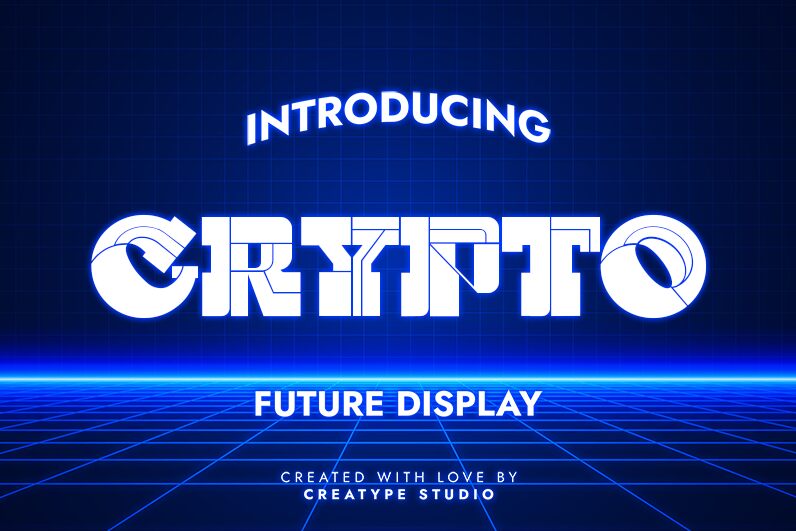
Crypto font is a free futuristic typeface crafted by Creatype Studio to bring a modern and edgy feel to your design projects. This techno font features geometric and angular shapes that evoke movement and innovation, providing an ideal option for contemporary projects. It is great for advancing modern technology branding while giving your texts a digital and high-tech look.
There are numerous use possibilities for the font, including futuristic books and movie covers, video game UI designs, and mobile and website applications. Think of Crypto whenever you want to reflect innovation and advancement in your projects, particularly logos, posters, stationery, and others.